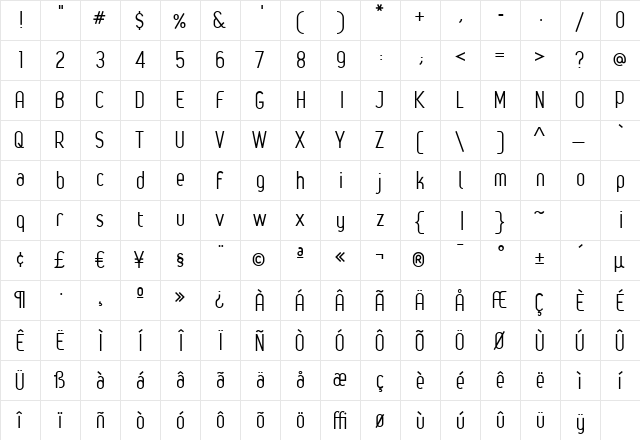
Leger Regular Font Preview
Leger Regular
Design Context for Leger Typeface
Leger is a composed and adaptable typeface that performs quietly and consistently across a wide range of design contexts.
Pro Tip: Pair Leger with a font of contrasting weight or personality to build a more expressive typographic hierarchy.